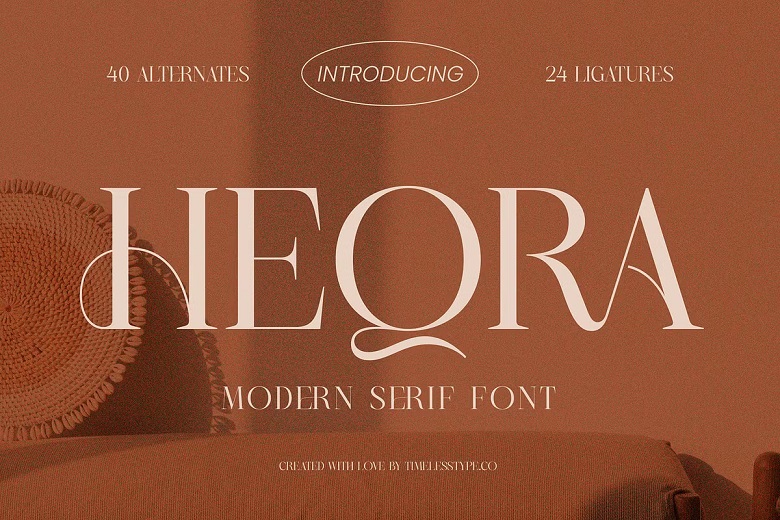
Heqra Font
Heqra – Modern Serif Font , from Timelesstype.Co , Suitable for any projects such as: logos, branding projects, homeware designs, product packaging, mugs, quotes, posters, shopping bags, t-shirts, book covers, name card, invitation cards, greeting cards, label, photography, watermark, special events, and all your other luxury and beautiful projects that need a Luxury Serif taste.
Heqra Serif Font